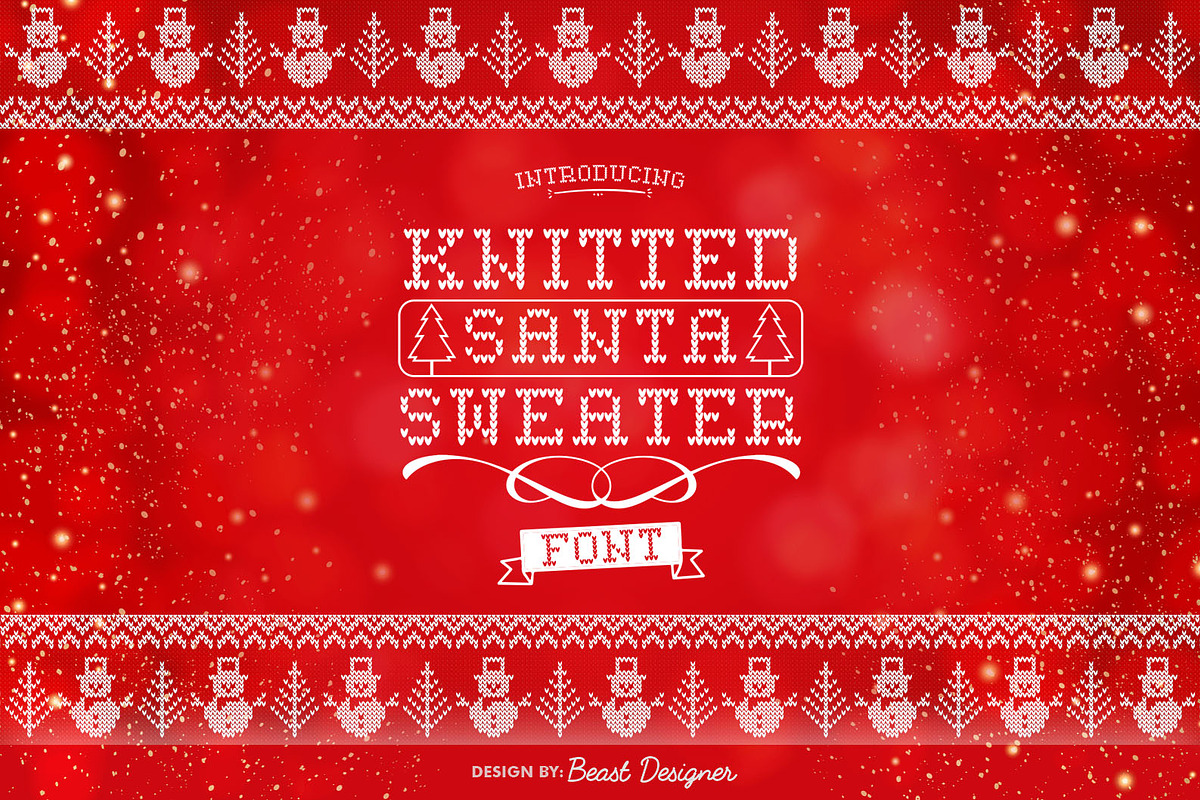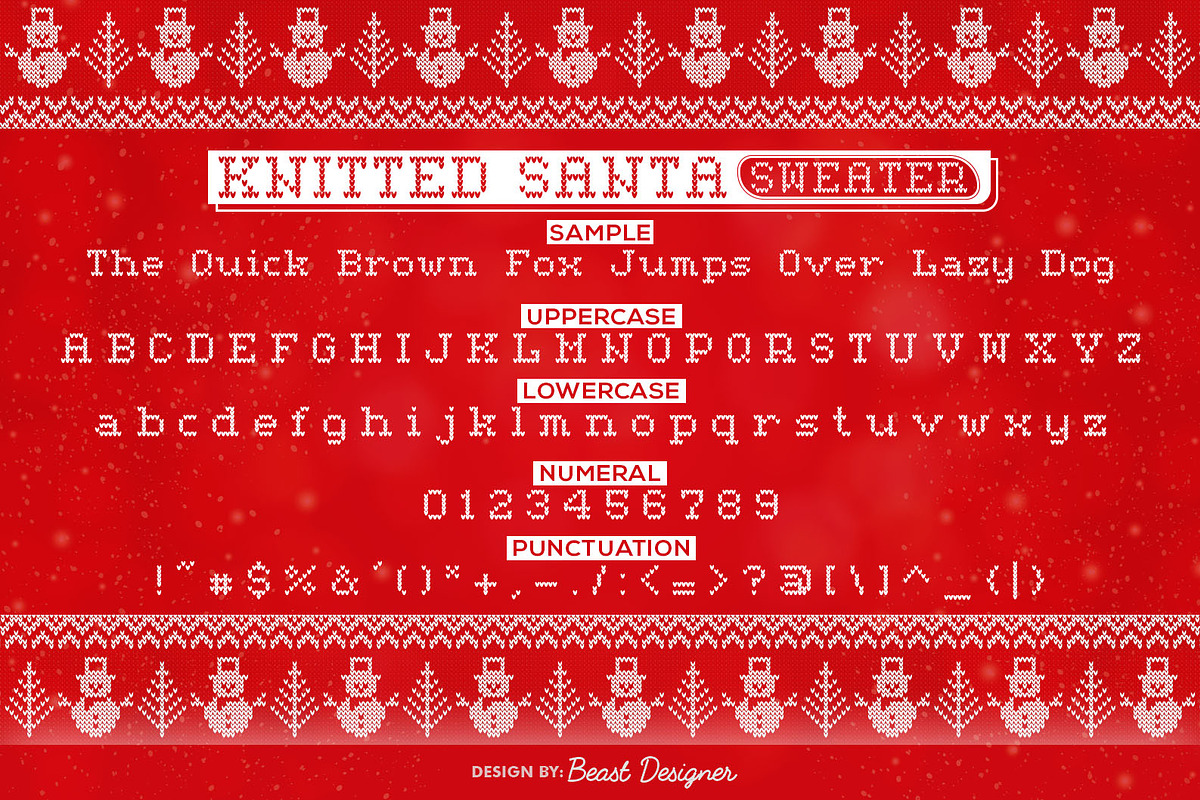
Knitted Santa Sweater
Knitted Santa Sweater is a delightful dingbat font designed to evoke the charm of holiday sweaters. It features individual knitted letterforms perfect for adding a unique and festive touch to Christmas designs. Whether you're creating greeting cards, social media graphics, or other holiday-themed projects, this font will help you spread cheer with its playful and whimsical aesthetic.